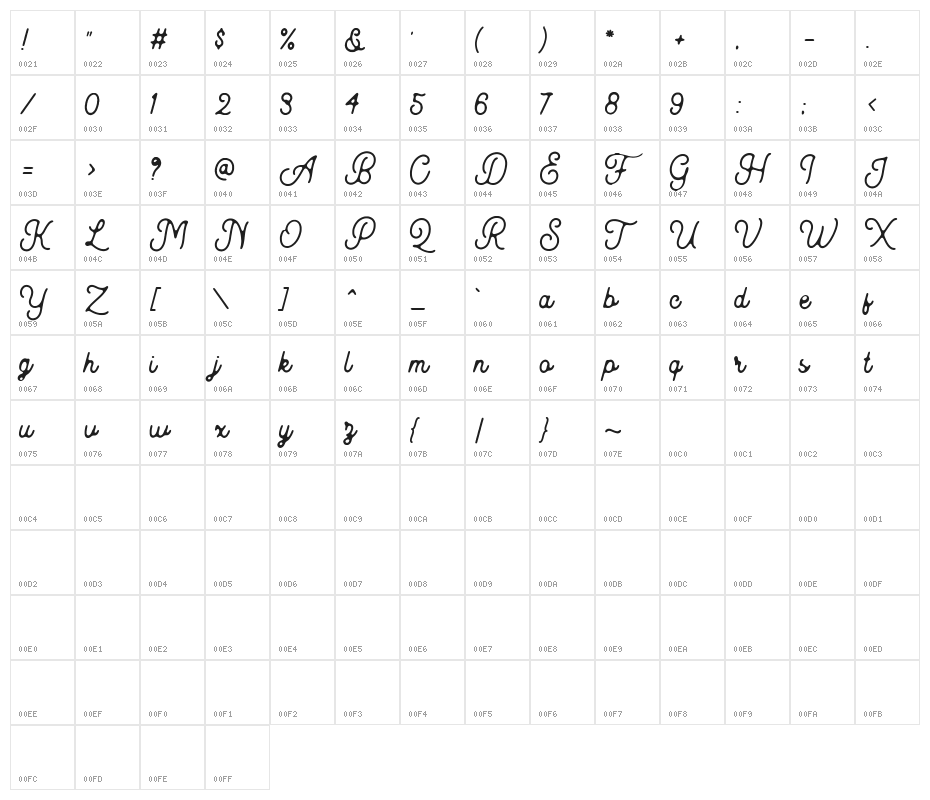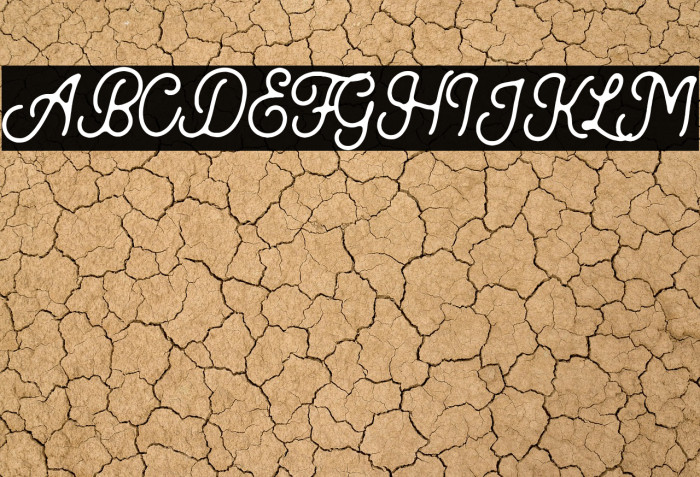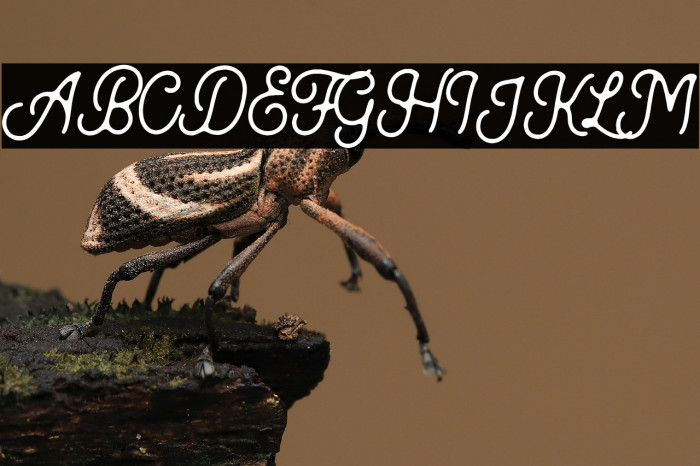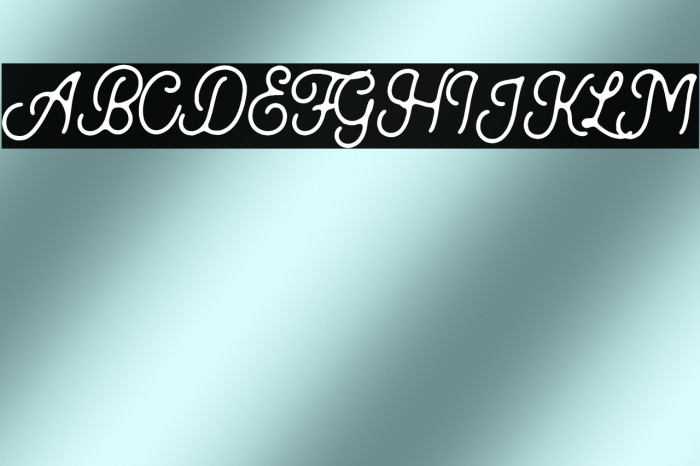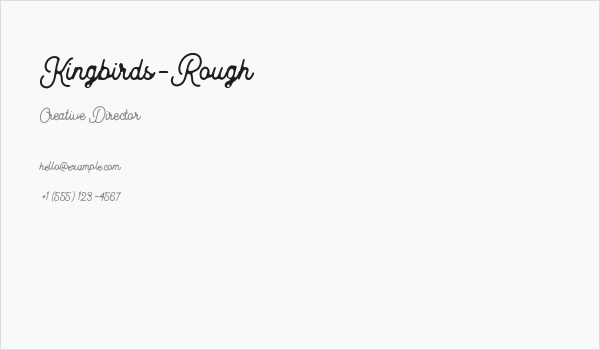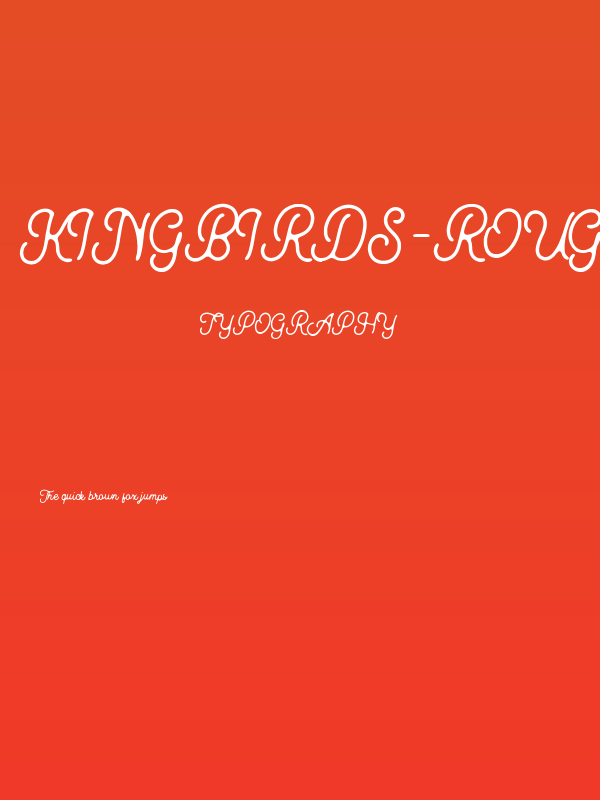
Kingbirds-Rough Font
Kingbirds-Rough Description
This font features a playful and dynamic script style with a hand-drawn appearance. The letters are connected in a flowing manner, giving it a sense of movement and energy. The uppercase characters are bold and slightly slanted, while the lowercase letters maintain a consistent rhythm with rounded edges. The numbers and special characters follow the same lively style, making the font versatile for various creative applications. The overall look is informal yet stylish, suitable for projects that require a personal touch.
| Proposed Projects | Ideal for greeting cards, invitations, logos, and branding materials that seek a personal and lively touch. |